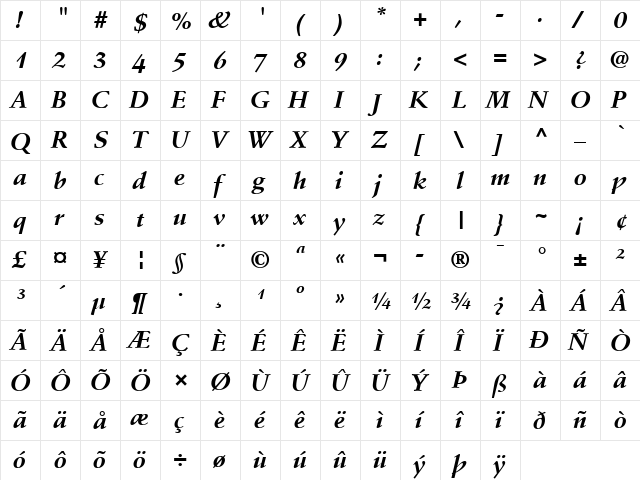
StempelSchneidler LT Bold Italic
Design Context for StempelSchneidler LT Typeface
StempelSchneidler LT is a composed and adaptable typeface that performs quietly and consistently across a wide range of design contexts. Its italic angle brings a sense of urgency and motion to the letterforms. The heavy weight commands attention and anchors typographic hierarchies.